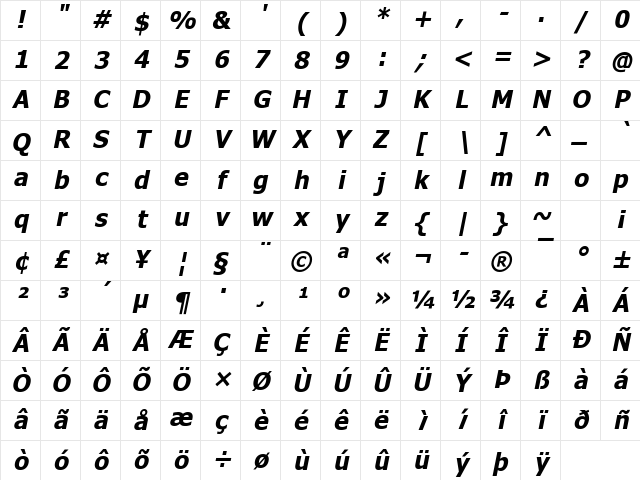
Tahoma Bold Faux Italic
Style: Bold Faux Italic
Foundry: Microsoft Corp.
Designer: Matthew Carter
Design Context for Tahoma
Tahoma is a composed and adaptable typeface that performs quietly and consistently across a wide range of design contexts. The slanted form adds forward momentum and visual energy. Its bold stroke weight gives it real presence on the page.